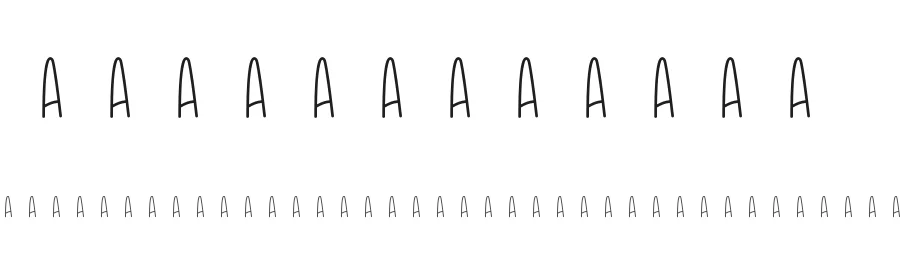
About Jack Attack Font
Jack Attack is a script & handwritten font designed by Jack Hoffman. It includes 55 glyphs, a regular weight, TTF (TrueType) format, and 89 languages. Jack Attack is free to download; check the license details on this page before commercial use. Script & handwritten fonts like Jack Attack work best for wedding invitations, greeting cards, signatures, and elegant branding.
Jack Attack Font is a script font that shines as a display or heading face. Pair it with a clean sans-serif or serif font for body text β the contrast creates a clear hierarchy while the two styles stay balanced and easy to read.
Jack Attack Font
by Jack Hoffman